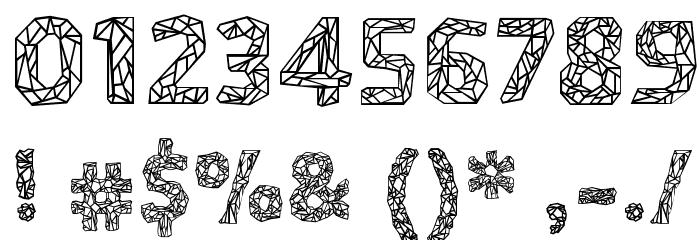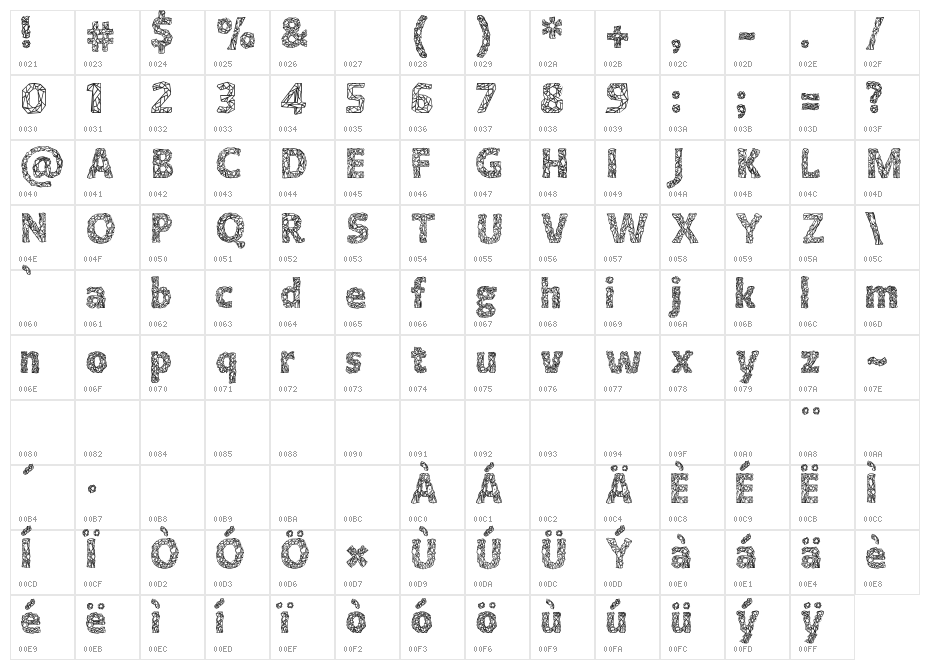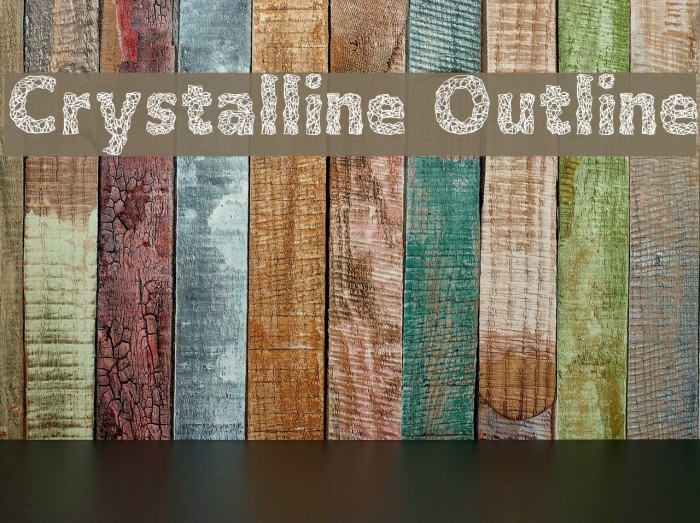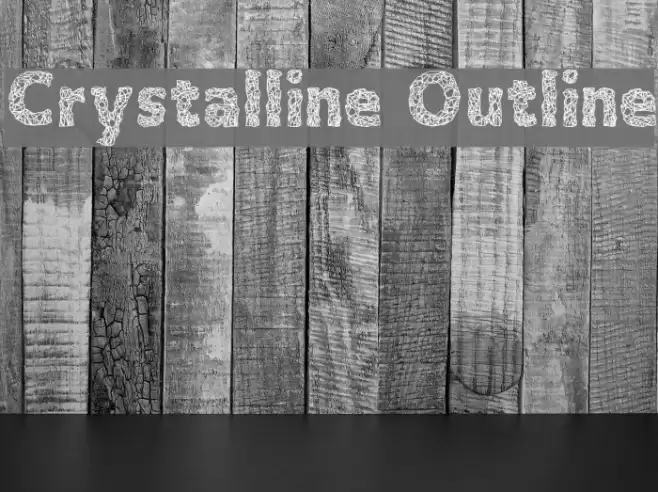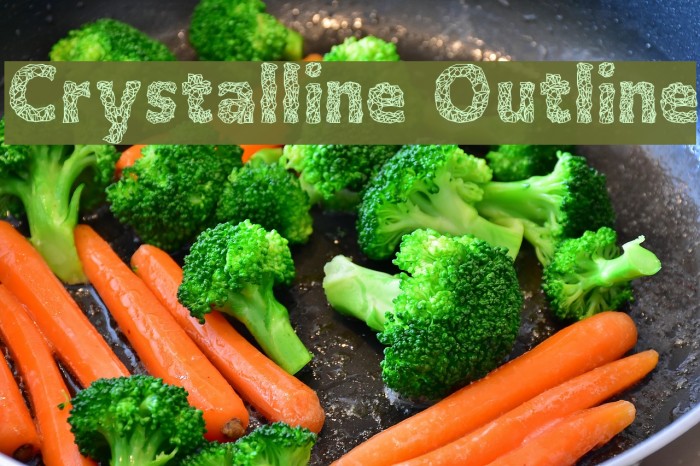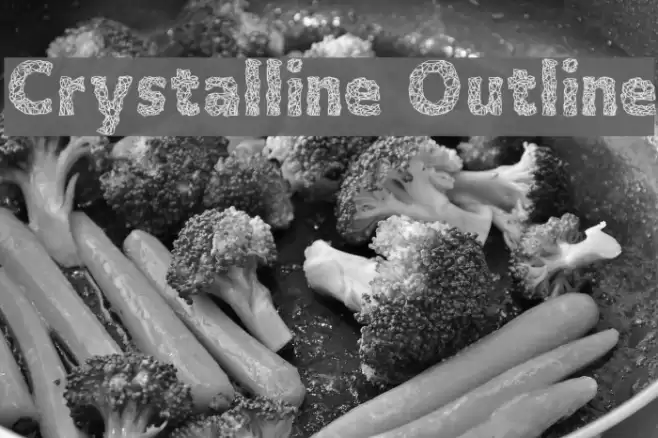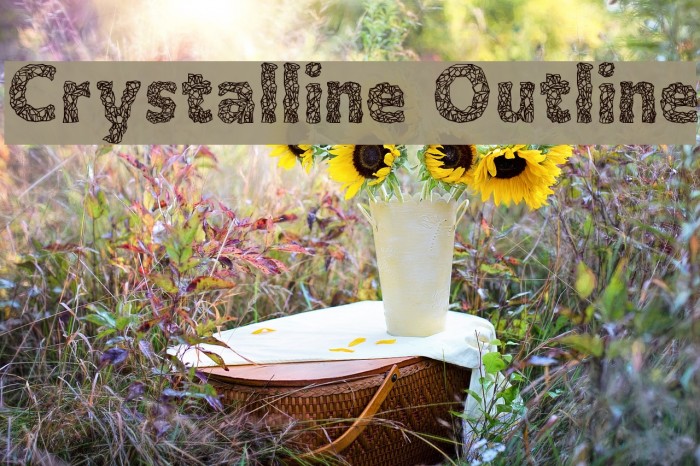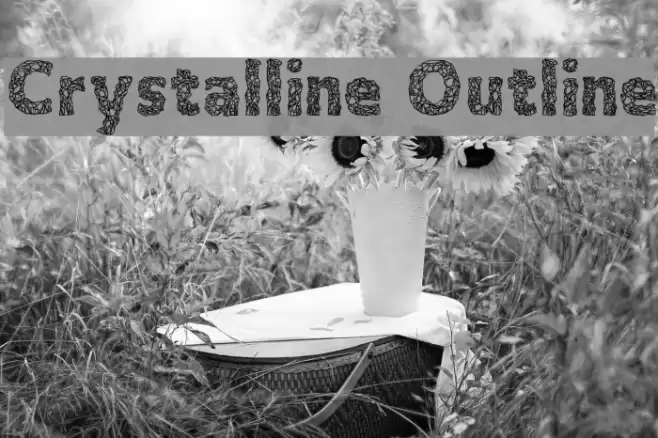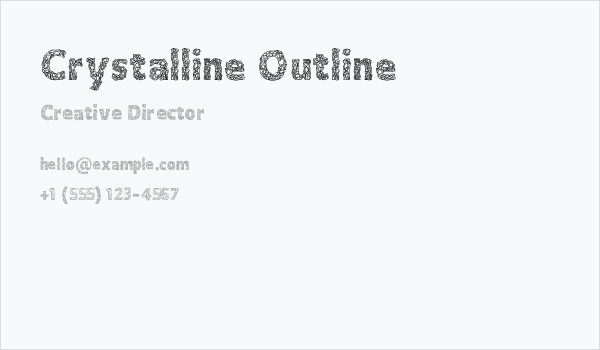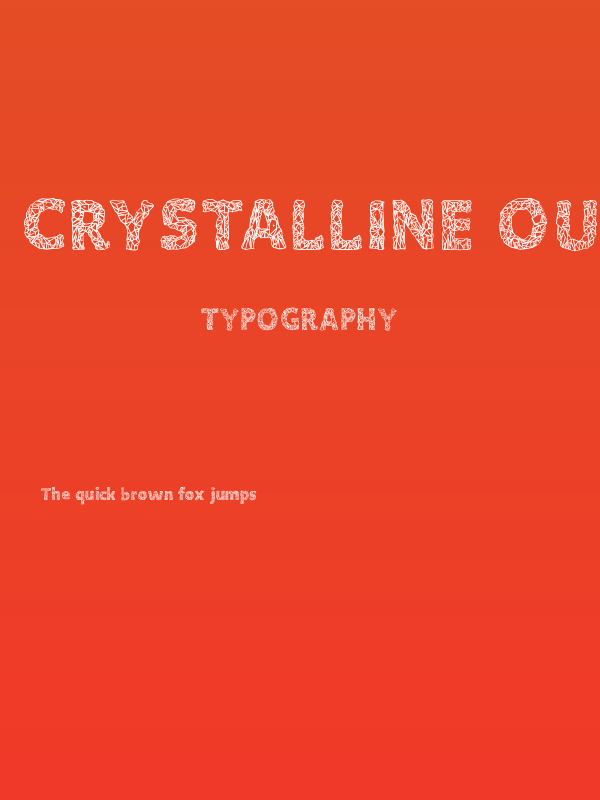
Crystalline Outline Font
Crystalline Outline Description
This font features a unique crystalline outline design, giving each character a faceted, gem-like appearance. The intricate detailing within each letterform creates a sense of depth and texture, making it stand out as a decorative choice. The uppercase and lowercase letters maintain consistent styling, with angular, geometric shapes that mimic the look of cracked or shattered glass. Numbers and special characters follow the same design principles, ensuring a cohesive look across all glyphs. This font is ideal for projects that require a bold, eye-catching aesthetic, such as posters, album covers, or branding materials that aim to convey a sense of modernity and sophistication.
| Proposed Projects | Ideal for posters, album covers, branding, and any project needing a bold, modern aesthetic. |